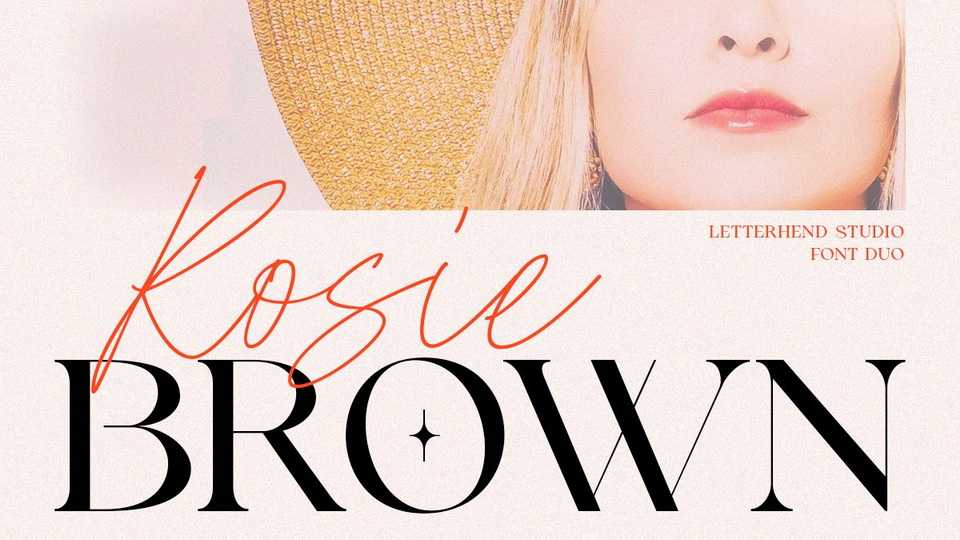
Download Rosie Brown typeface, a pair of an elegant serif font and stylish script that brings the modern and casual feel in the same time. The pretty high contrast serif combined with the natural hand writing script are the perfect match for you who needs a typeface for headline, logotype, apparel, invitation, branding, packaging, advertising etc.